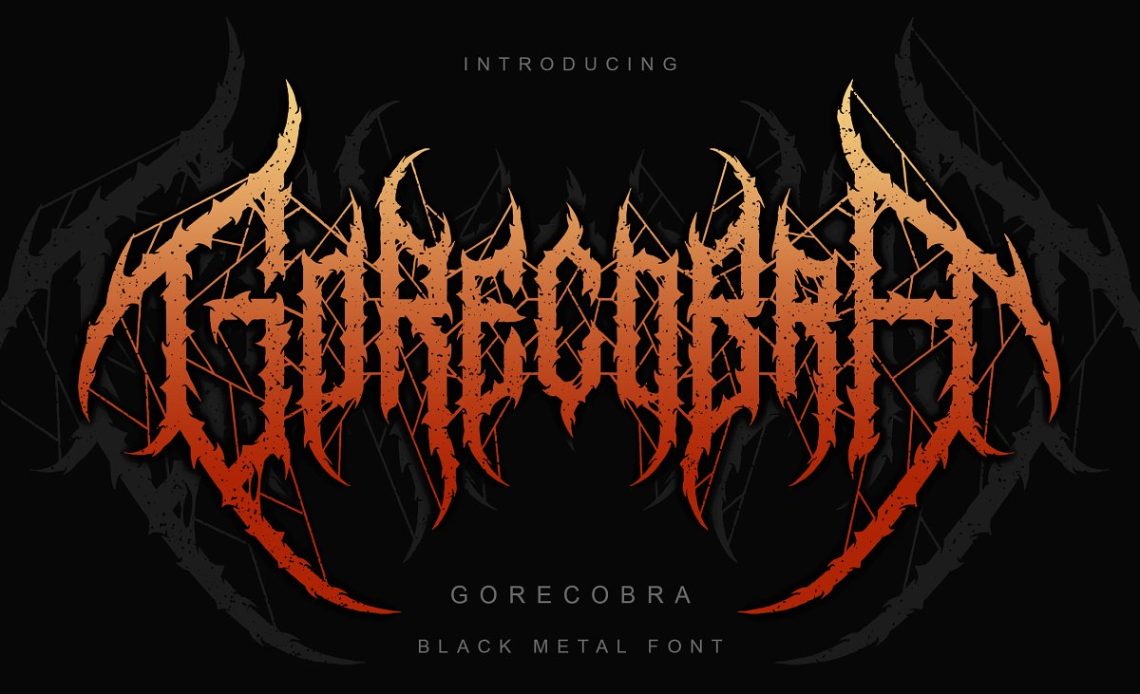
Introducing Gorecobra, the ultimate black metal font that will add a heavy and edgy vibe to your designs. Created by Madhaline Studio, this font is carefully crafted to deliver a powerful and authentic blackletter style that's perfect for any metal band logos, merchandise, clothing, or apparel.
With its intricate and bold design, Gorecobra is the perfect choice for designers looking to add a touch of darkness to their projects. The font features a heavy and imposing feel that's sure to capture the attention of your audience.
Gorecobra is not just any font, it's the best font for display text. Whether you're looking to create a captivating logo, a unique t-shirt design, or an eye-catching poster, this font will make your designs stand out from the crowd.
This font is not just visually appealing, it also has a strong emotional impact. The heavy and edgy design of Gorecobra evokes a sense of power, strength, and dominance, making it the perfect choice for anyone looking to create a bold and impactful message.